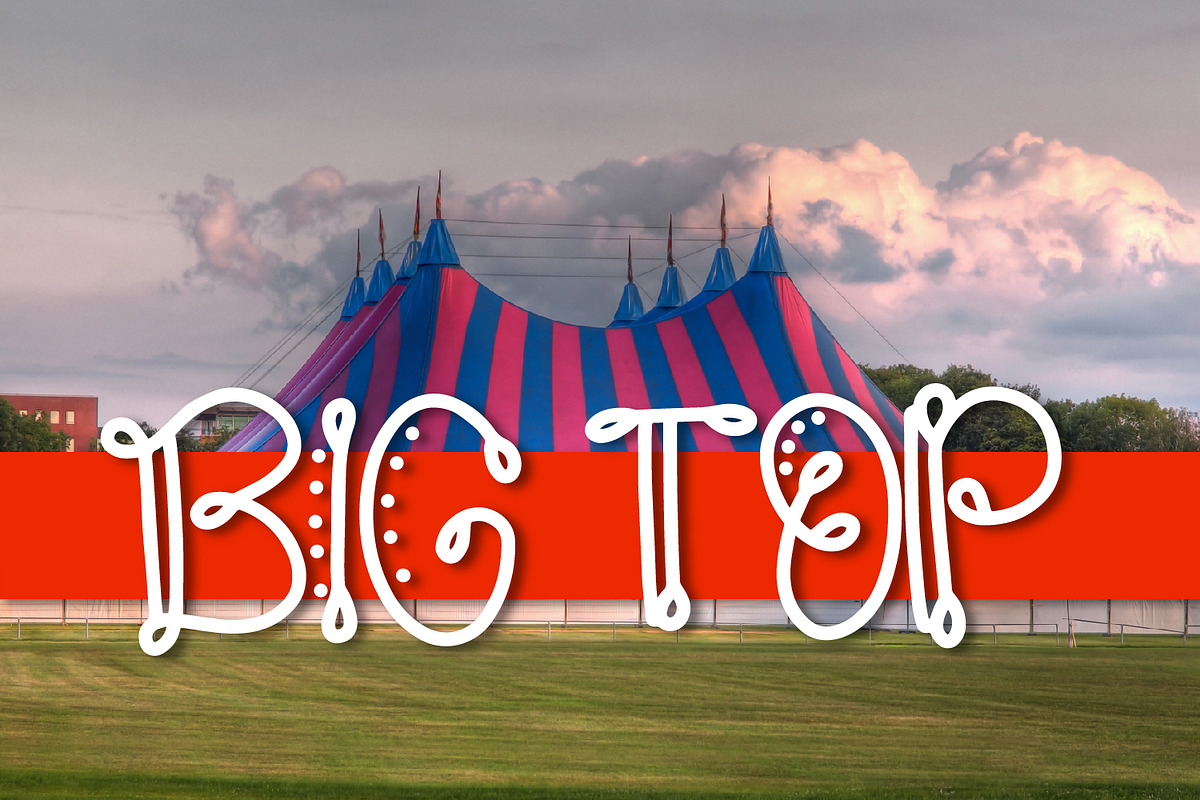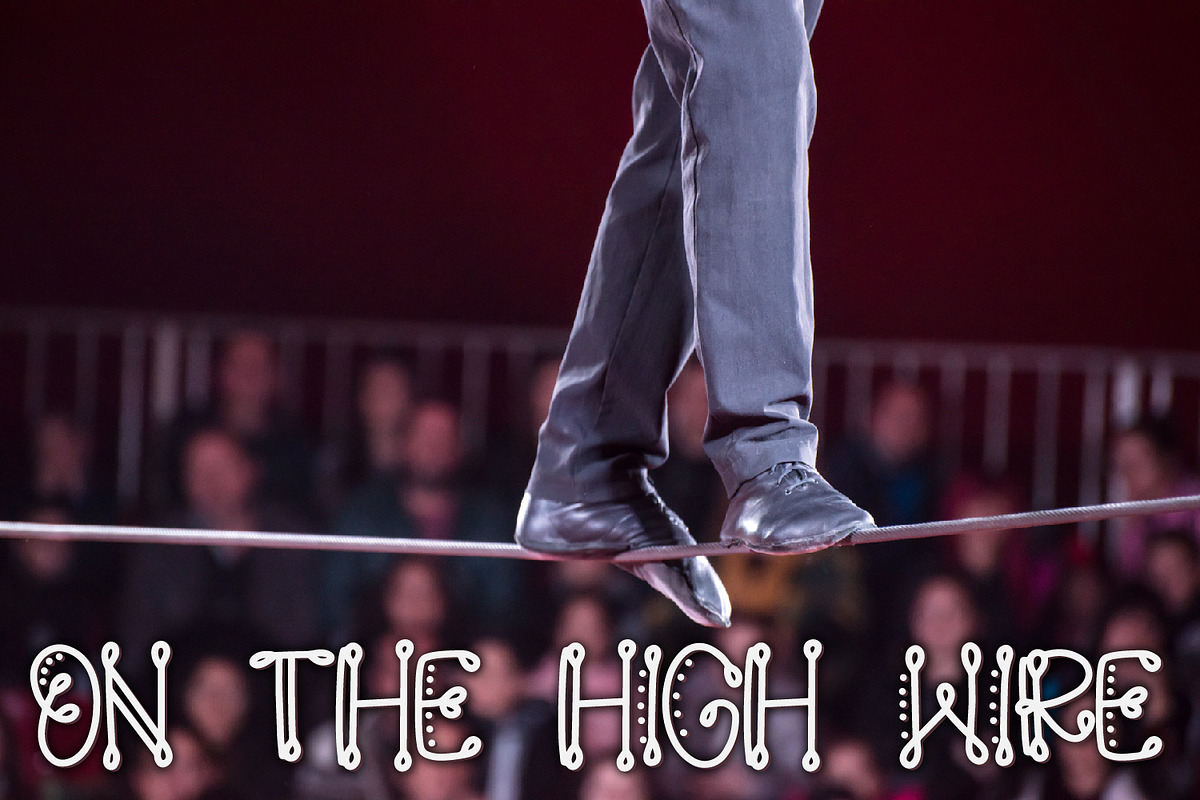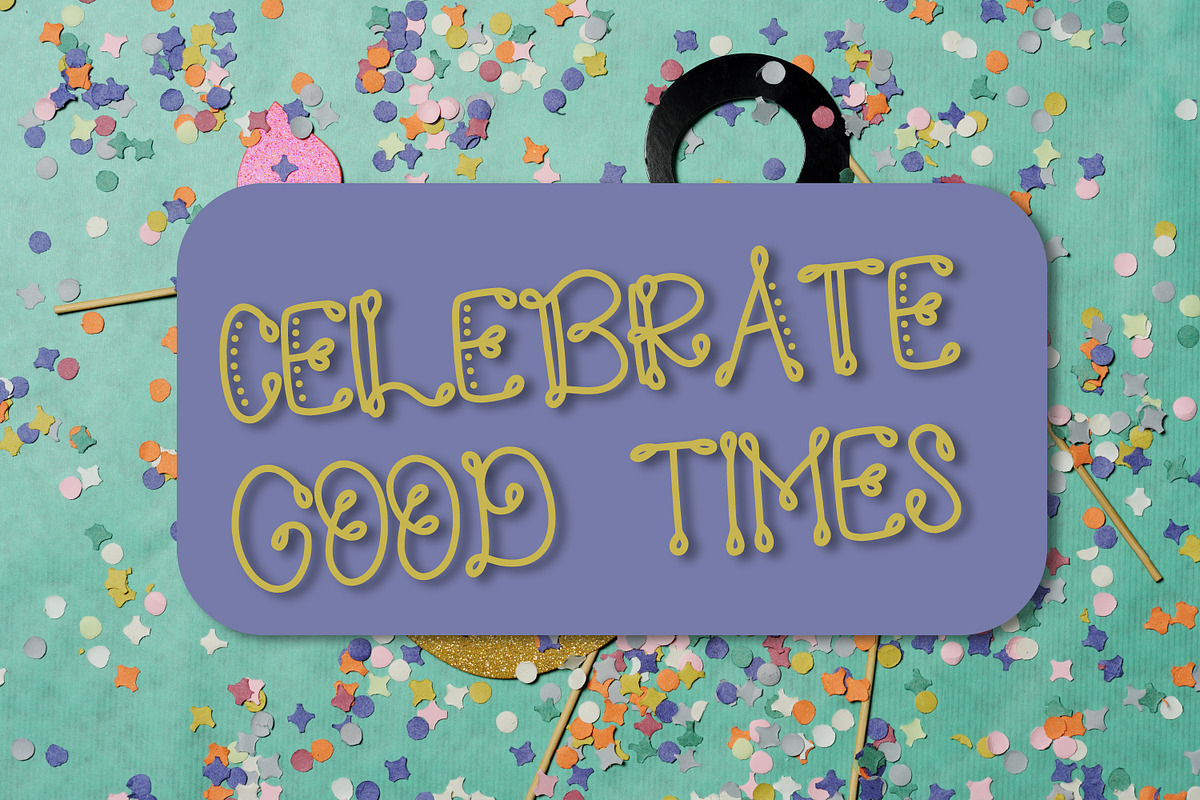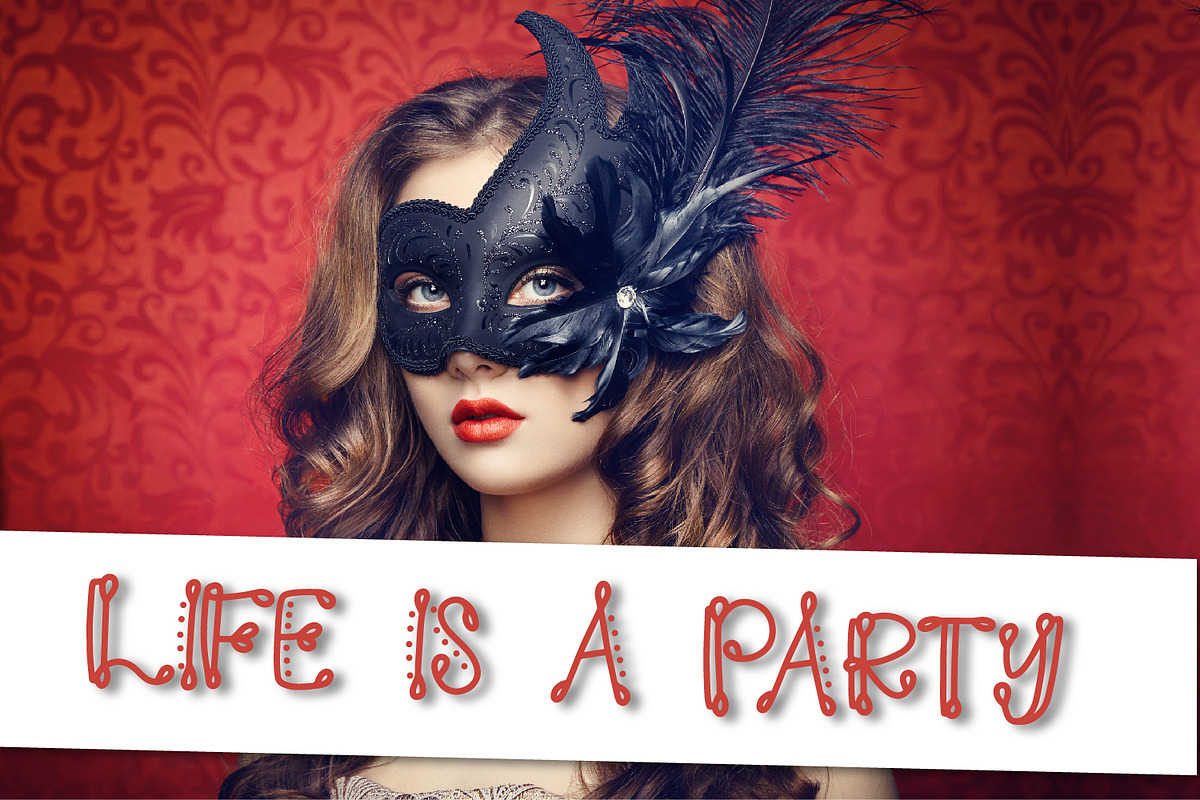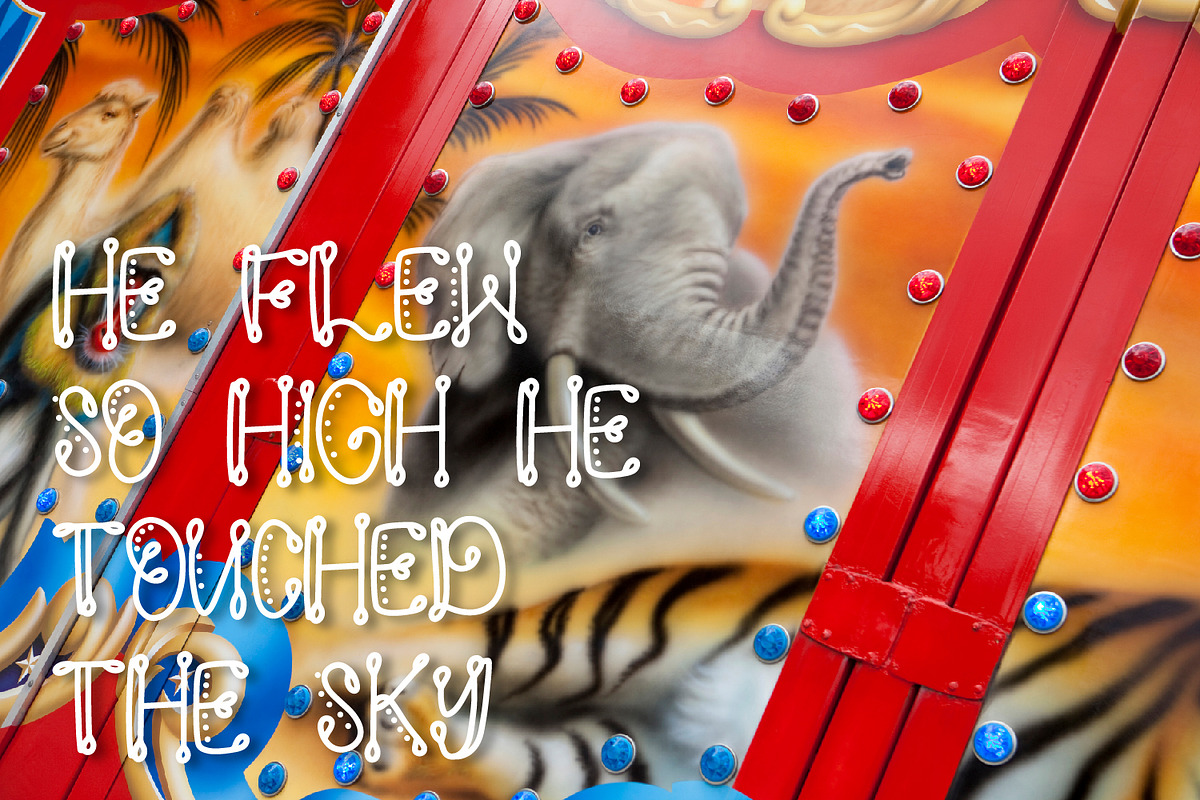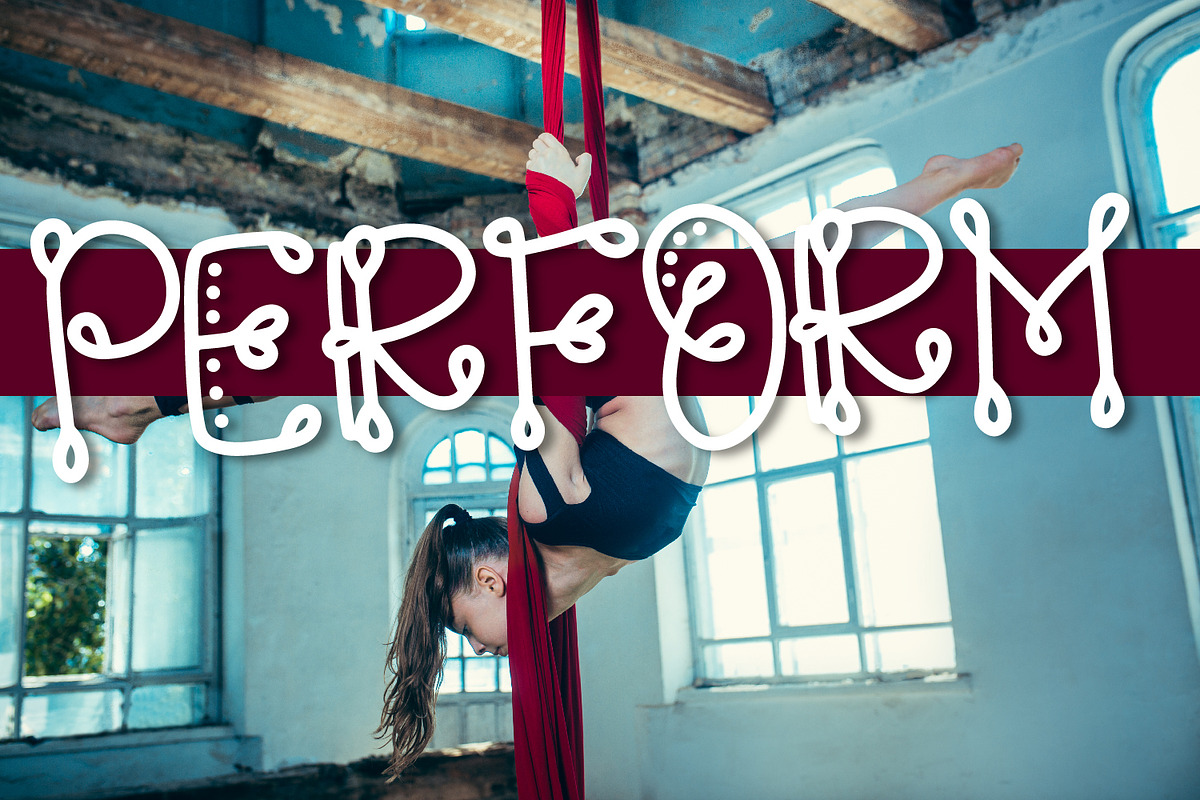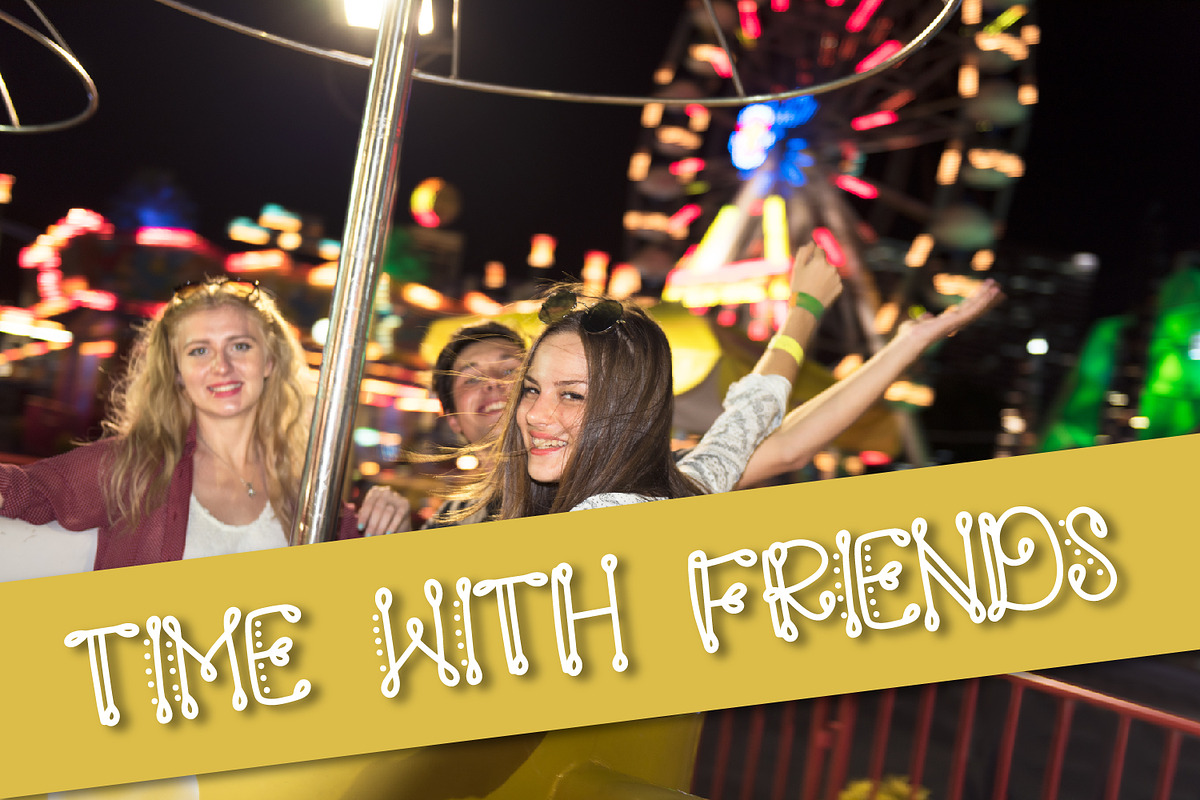
Sideshow - A Silly Quirky Font
Why Sideshow - A Silly Quirky Font is worth a look
Sideshow - A Silly Quirky Font by CraftyLittleNodes fits naturally into Branding, posters, packaging, typography.